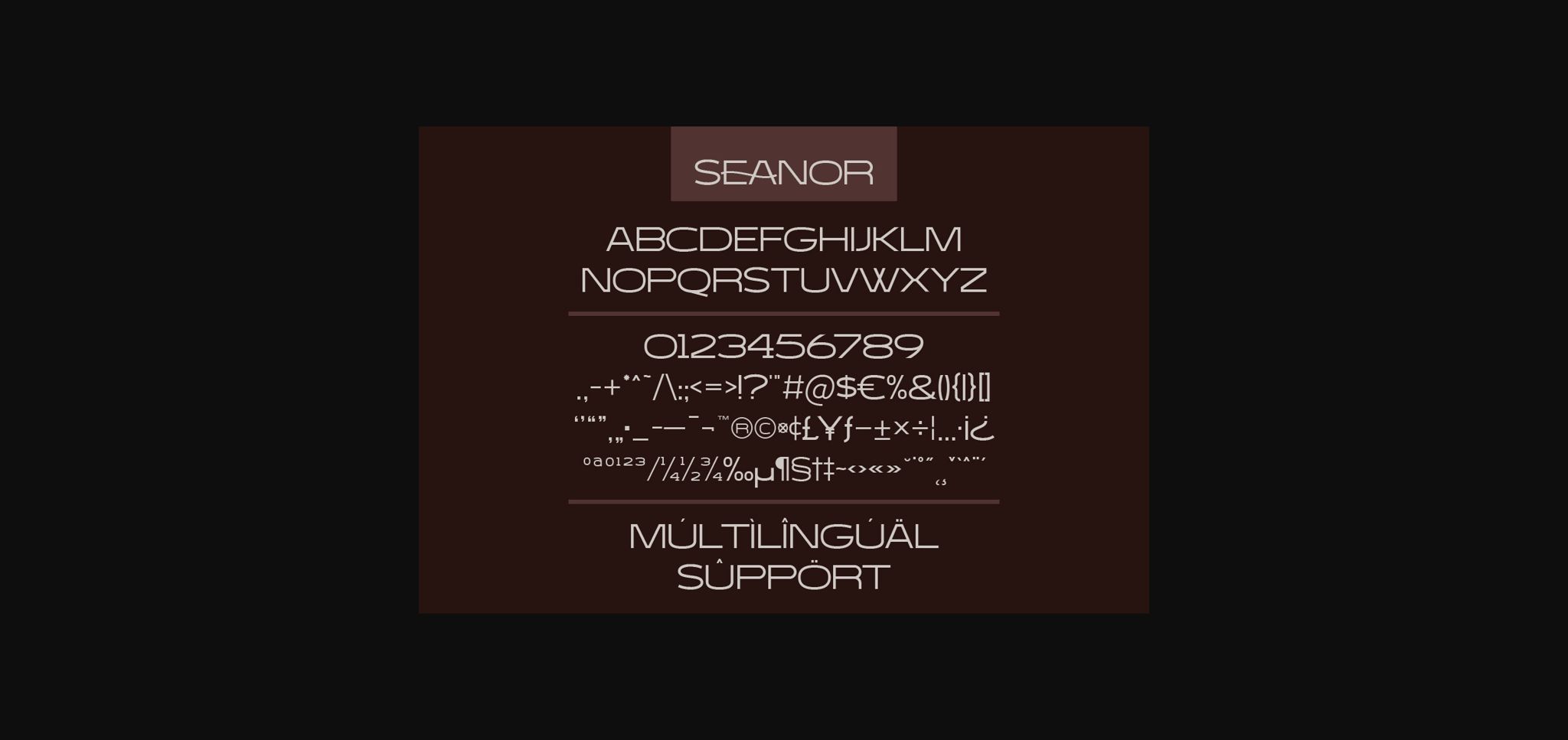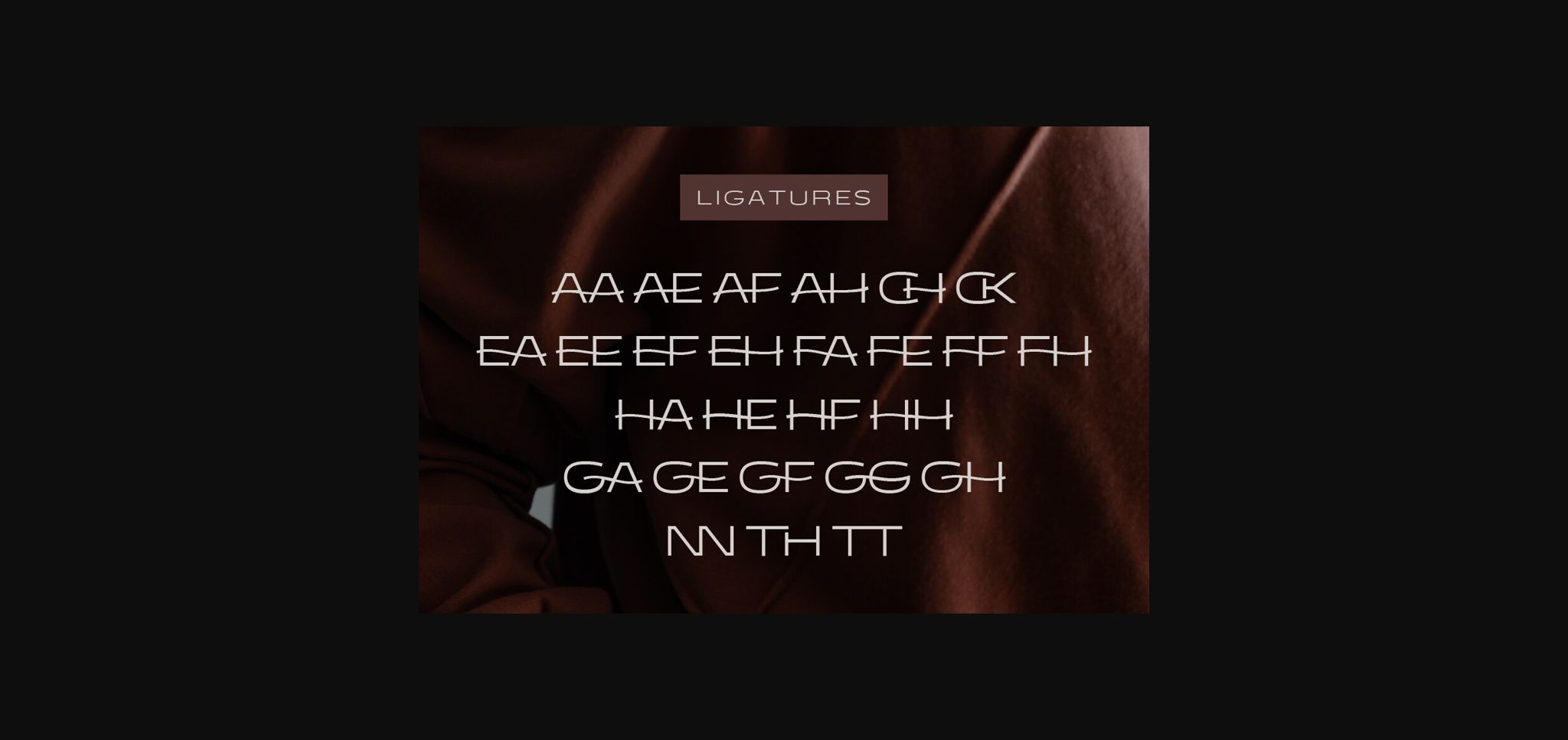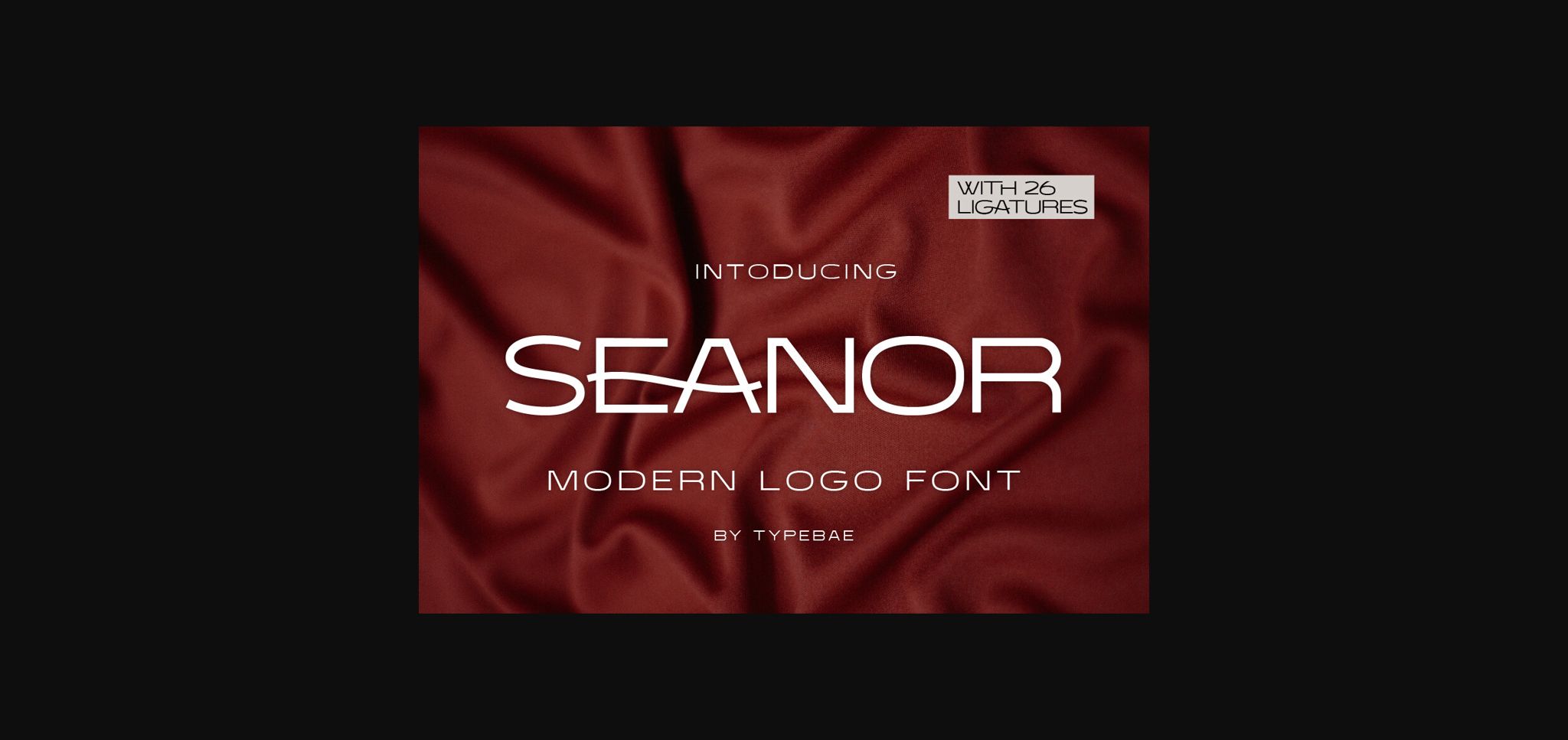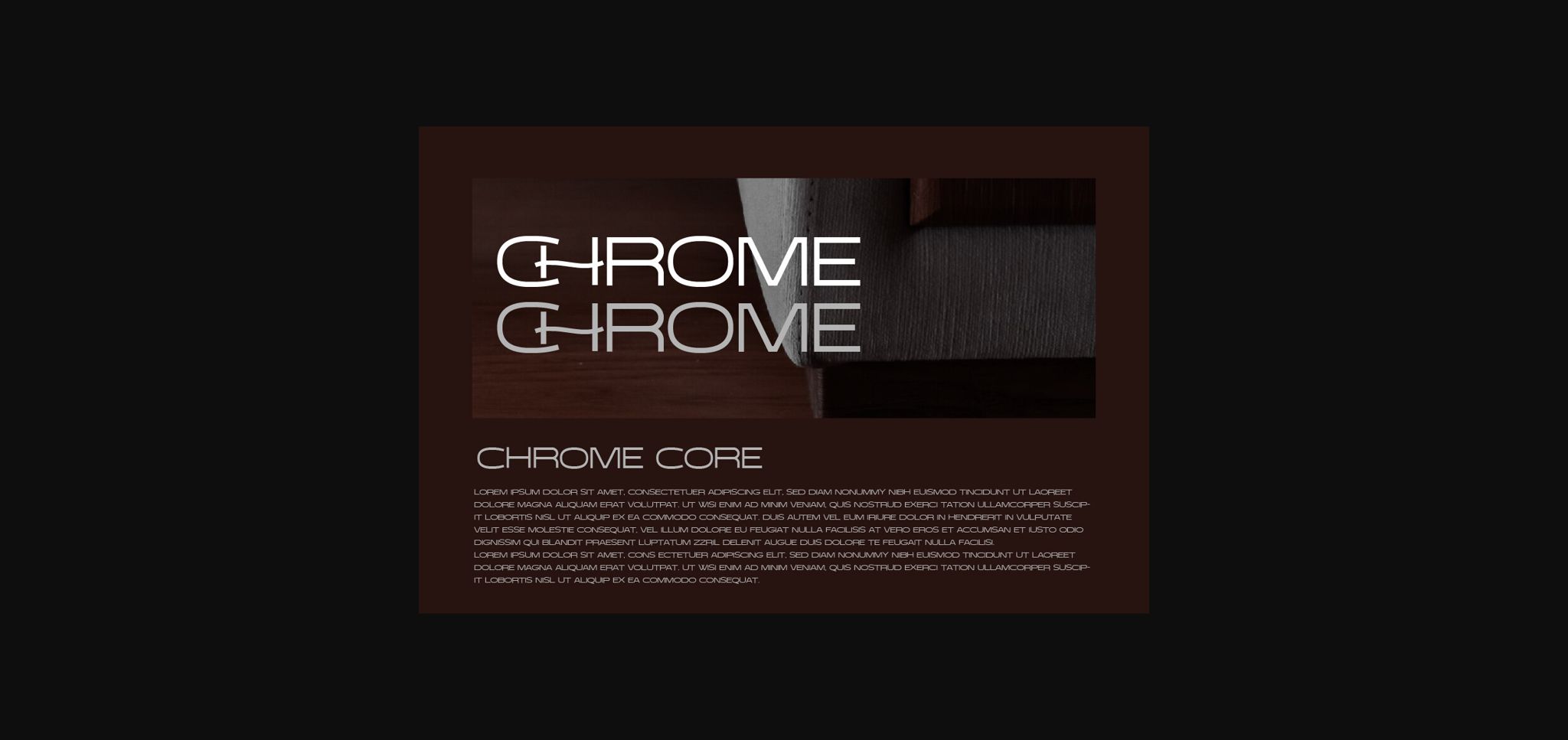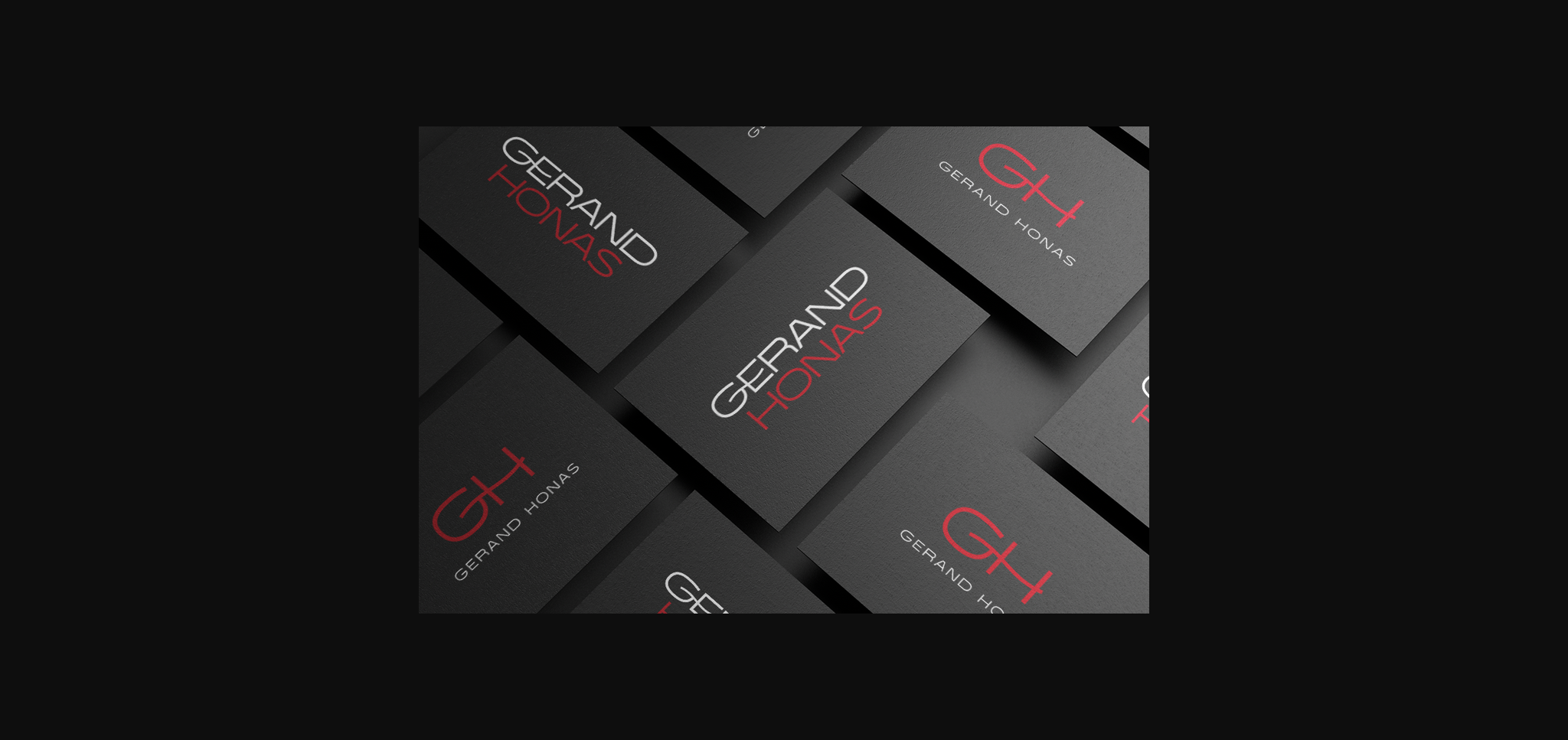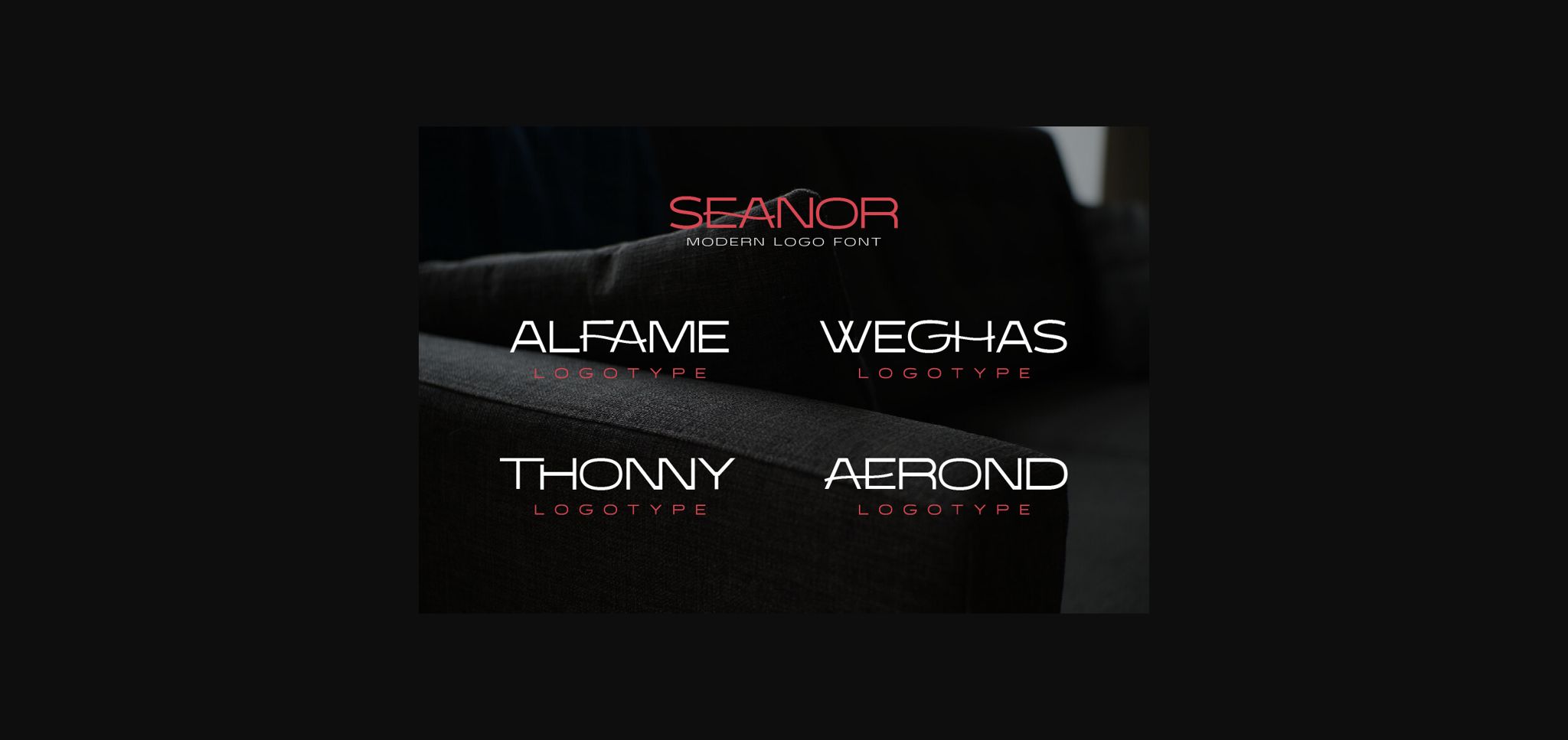
Seanor Font
About Seanor Font
Seanor is a modern and versatile sans-serif font. It offers a modern aesthetic, making it suitable for various branding and design projects. The font’s ligatures provide unique and stylish combinations of letterforms, enhancing the overall visual appeal of any logo or typographic design.